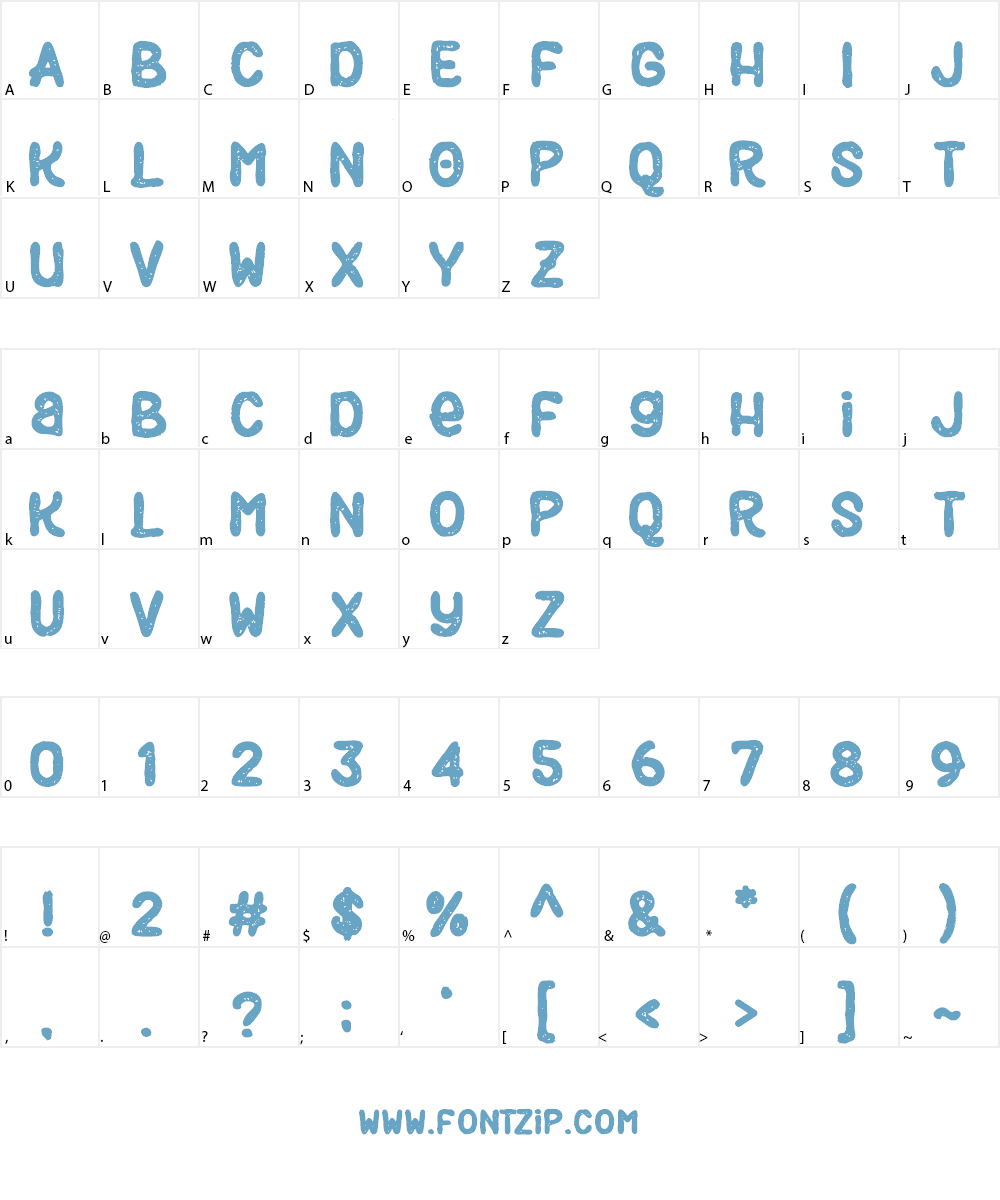
Black Burger – Delicious and playful font with a vintage type design style, but it still has a strong modern appearance
Black Burger perfect for branding projects, headlines, posters, packaging, product labels, print, menu board, social media post, etc